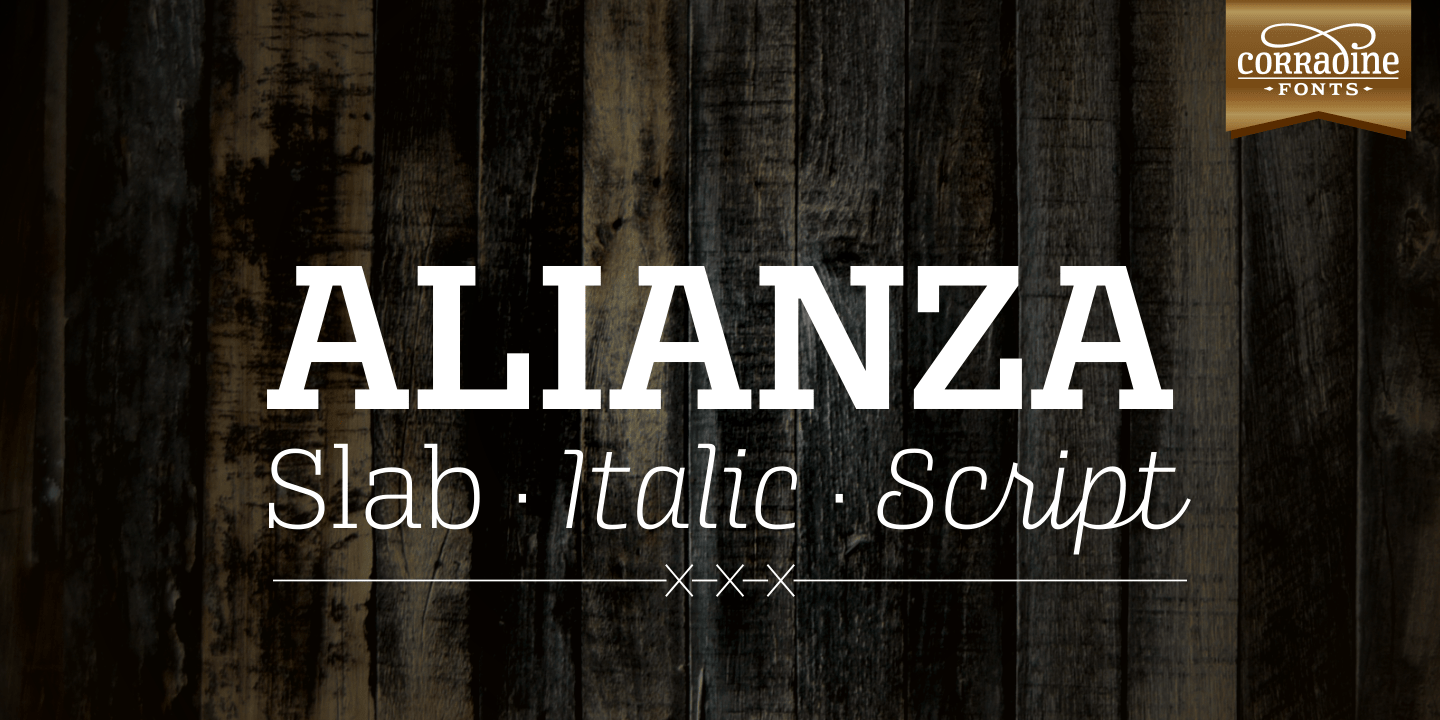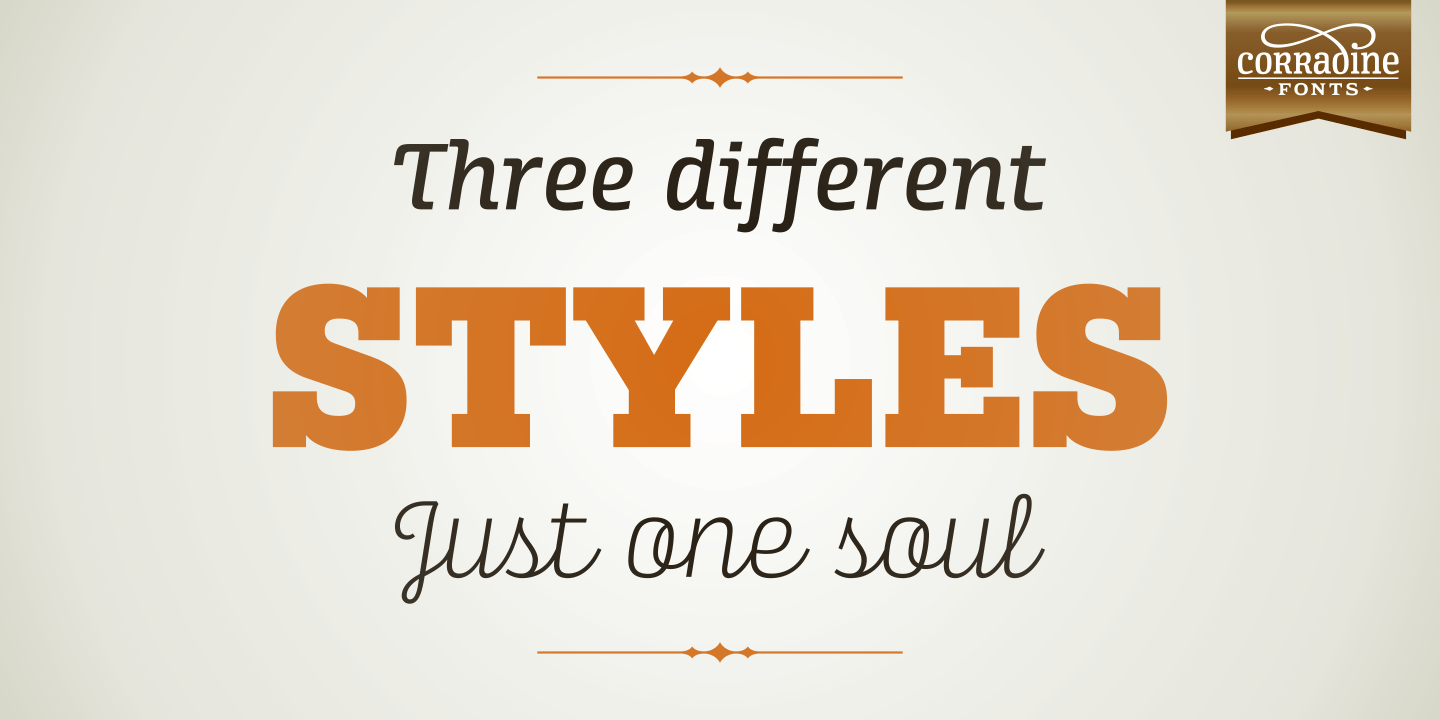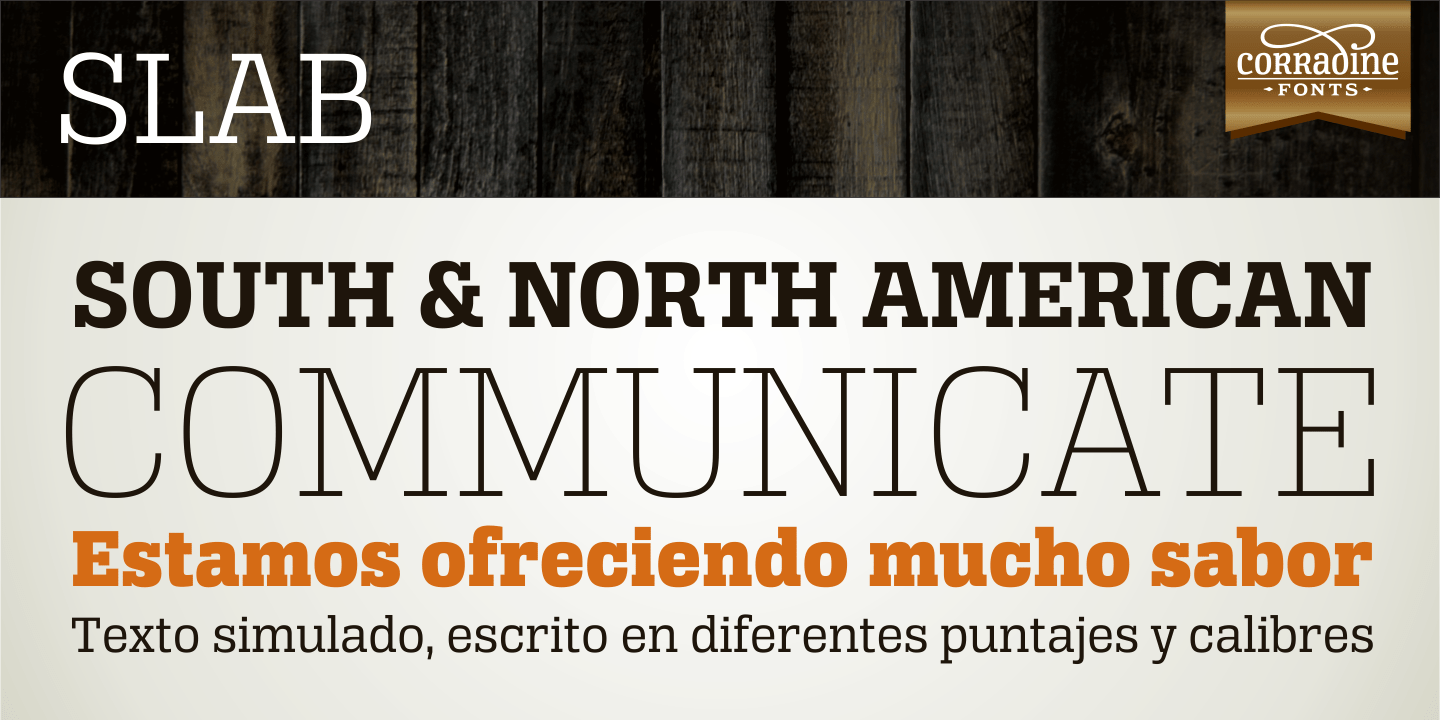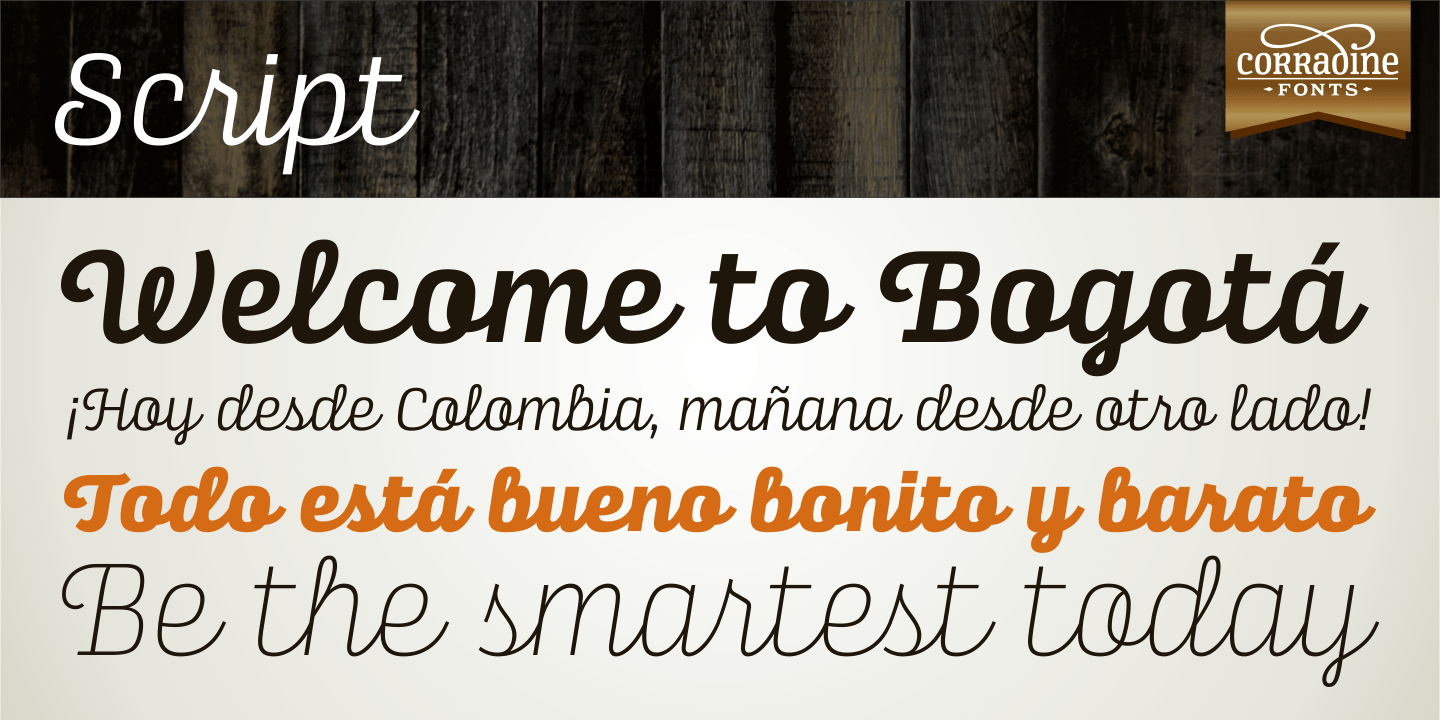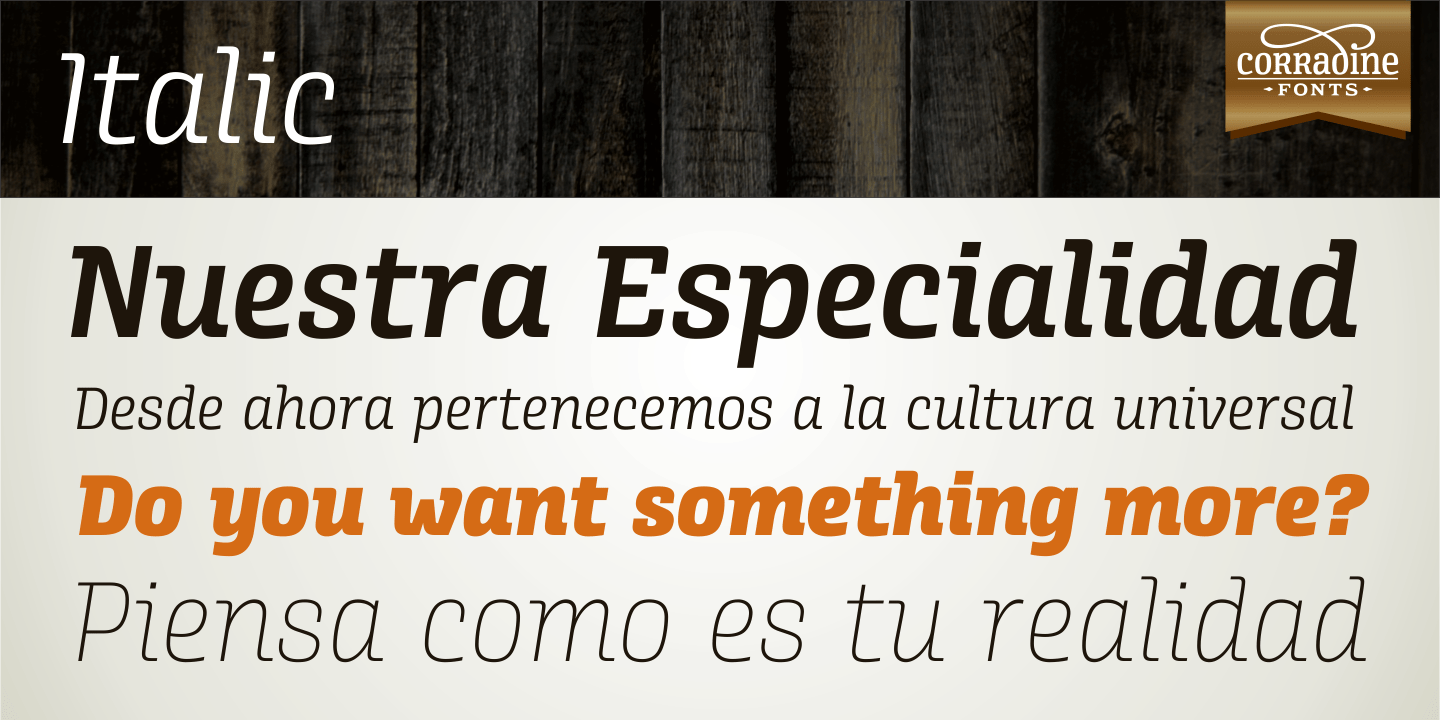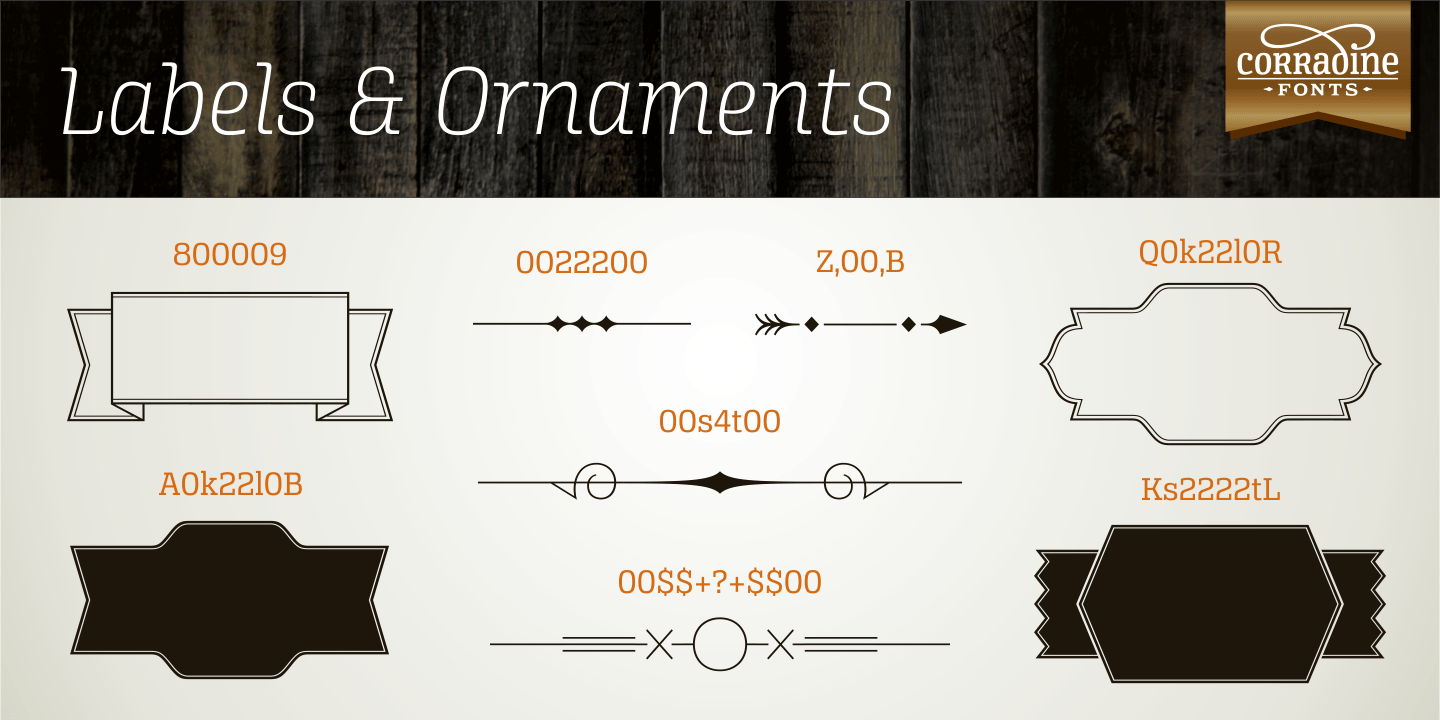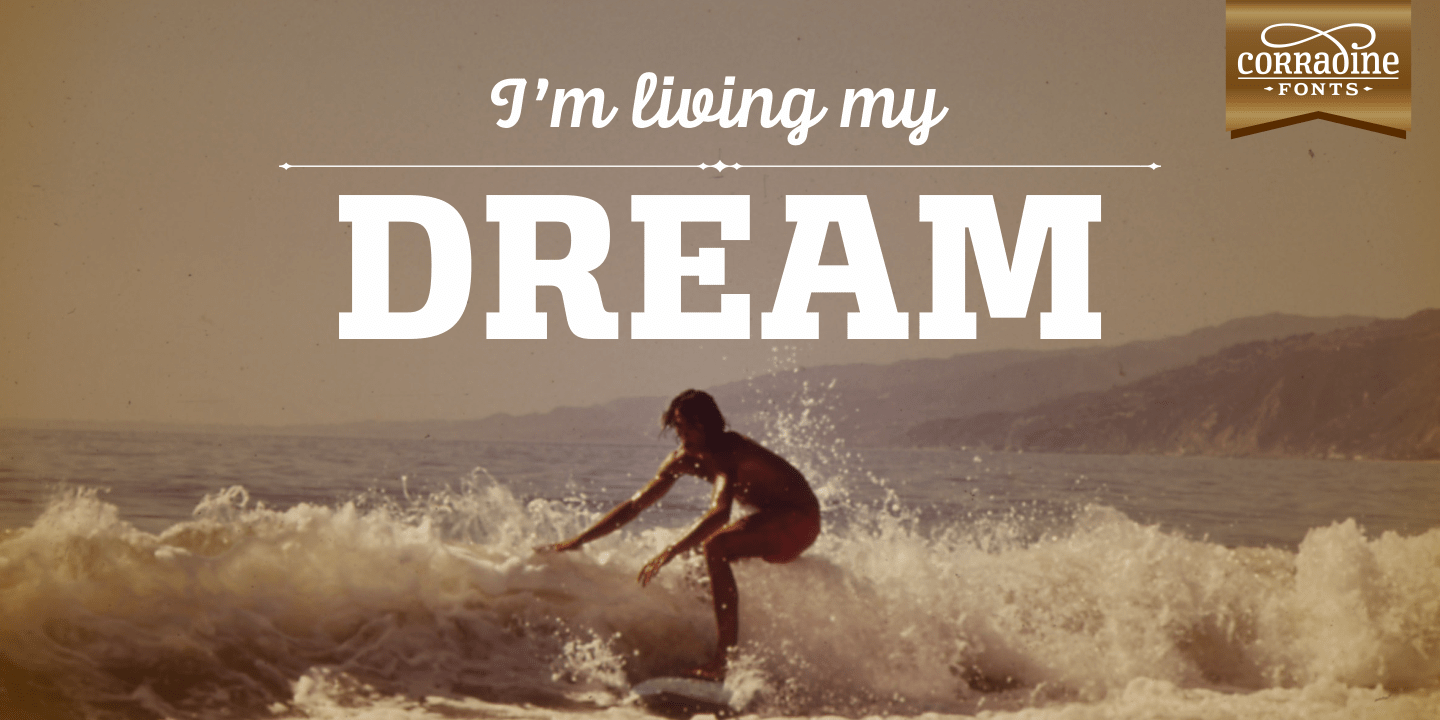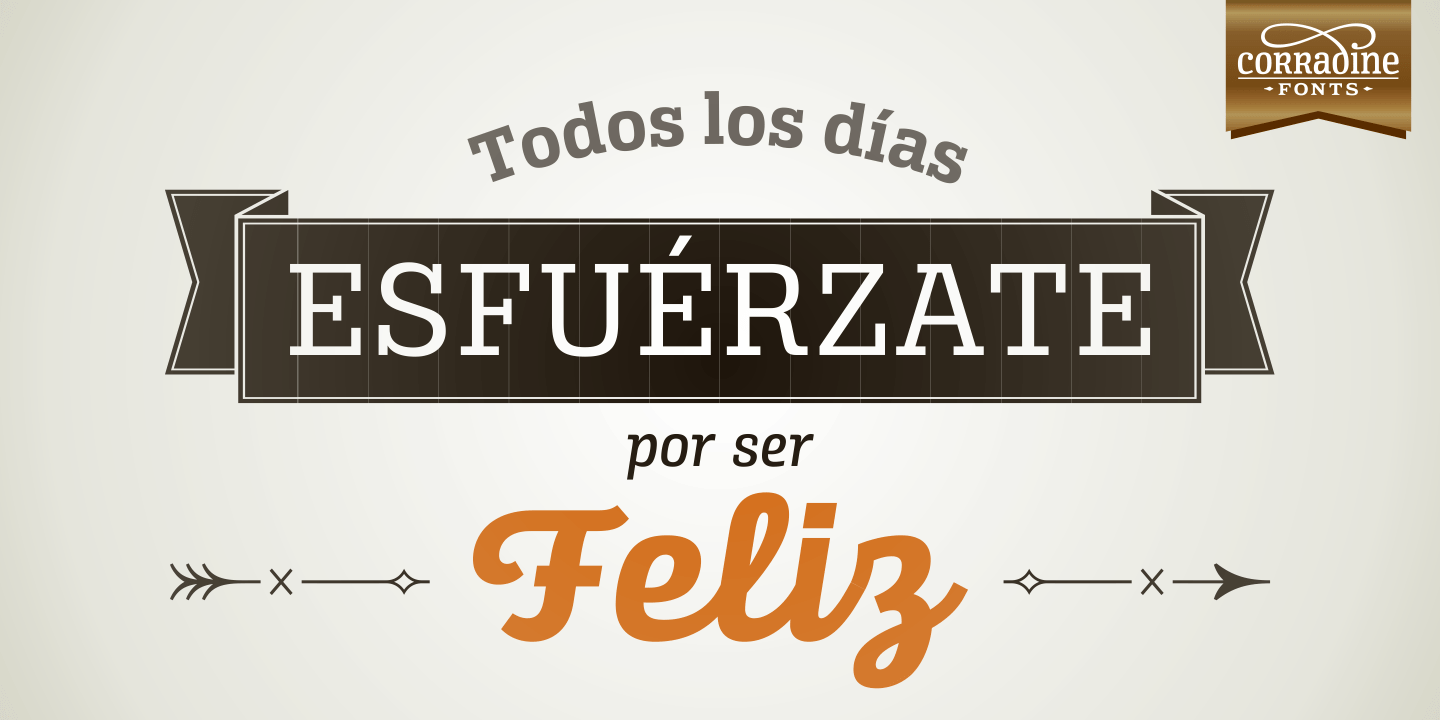
Alianza
Font Family by Corradine Fonts
This is a complex typographic system which includes three different but complementary styles so far: Slab, italic and script, with nine weights each one; plus three sets of ornamental fonts: labels, negative labels and ornaments.
The soul of the family is a slab feeling applied judiciously to the italic and script styles to make it coherent with the whole system.
Each style has three sets of figures: Proportional lining, tabular lining and old style.
You can mix the three styles in a single piece to obtain more expressive results without worring about the uniformity and complementing the design by using the ornamental sets.